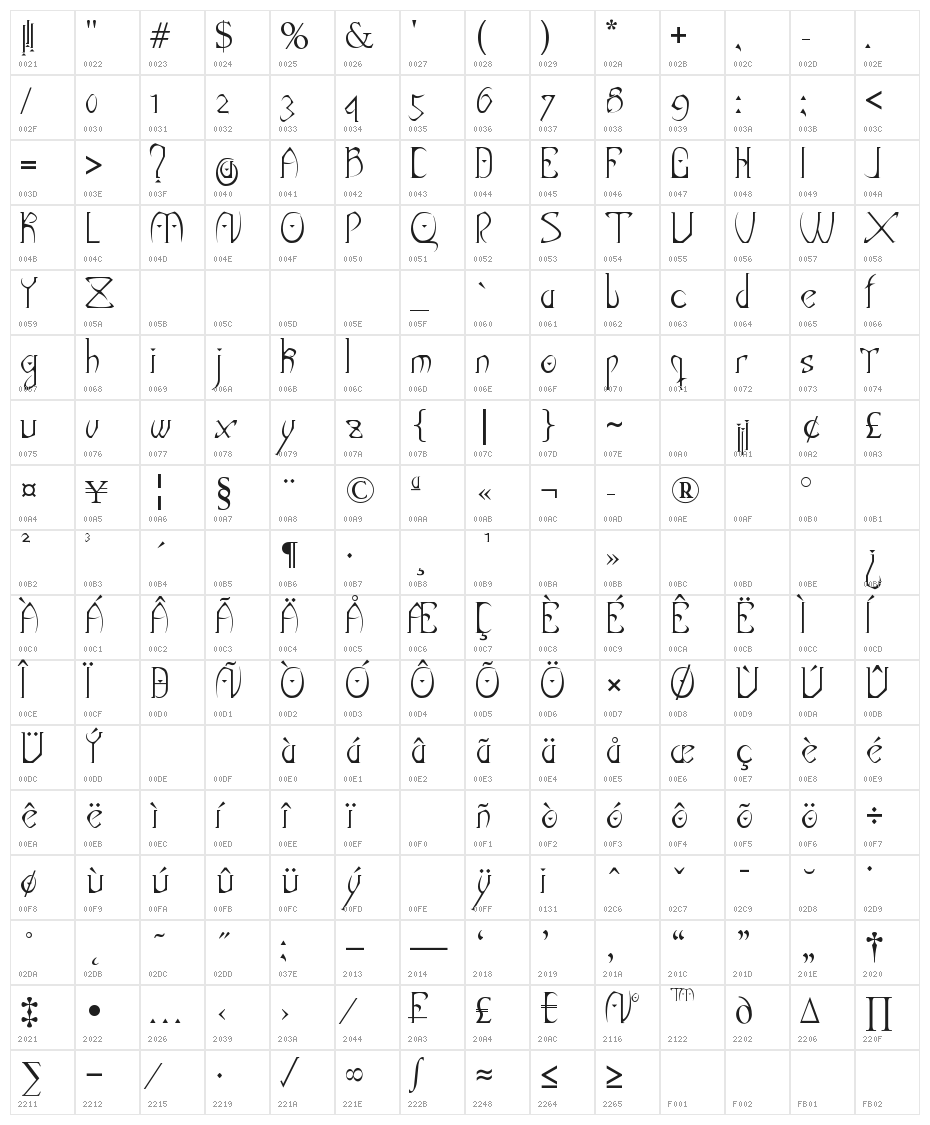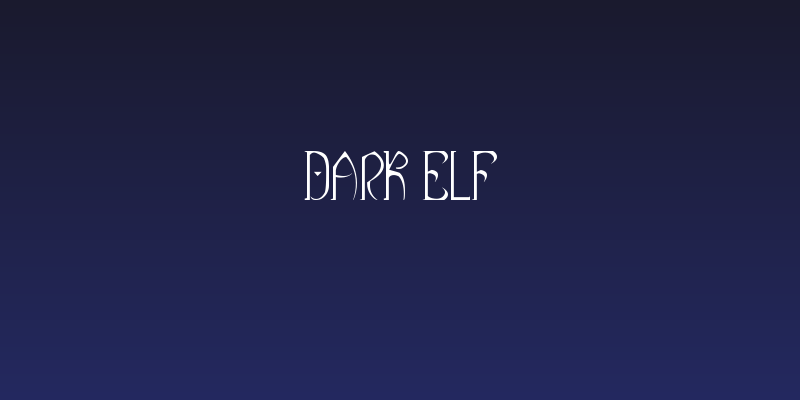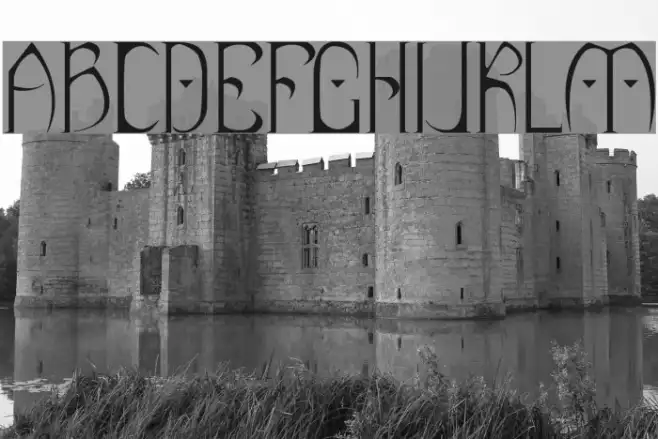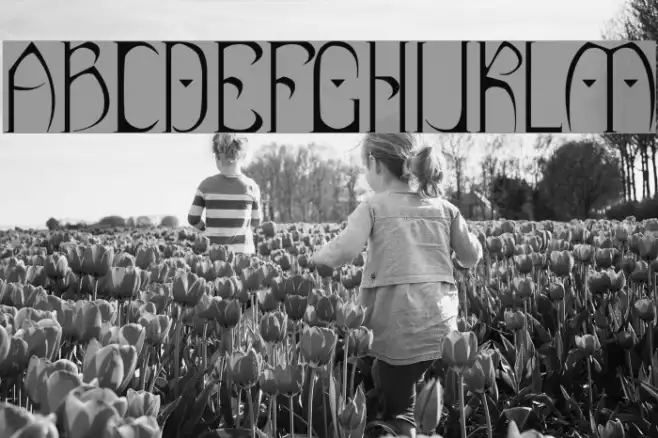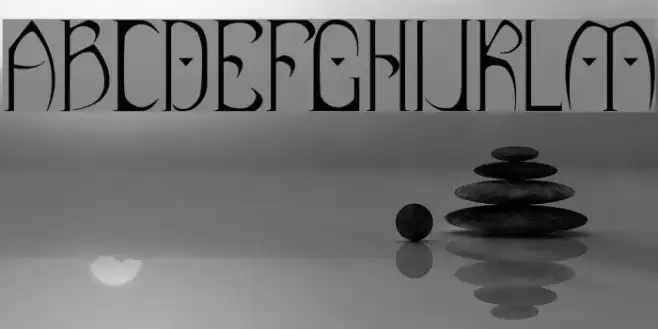
Dark elf Font
Dark elf Description
This font features a unique and mystical design, reminiscent of fantasy and elven aesthetics. The characters are elegantly elongated with sharp, angular serifs that give a sense of ancient runes or magical scripts. The uppercase letters are particularly striking, with symmetrical embellishments that add to the font's enchanting appearance. The lowercase letters maintain the same mystical style, ensuring consistency throughout. Numbers and special characters are crafted with the same attention to detail, making them suitable for thematic projects. The overall impression is one of elegance and mystery, perfect for fantasy-themed designs.
| Overall Style | Fantasy, Mystical, Enchanting |
| Use Case | Headlines, Logos, Decorative text |
| Proposed Projects | Ideal for fantasy book covers, game titles, movie posters, and themed event invitations. |